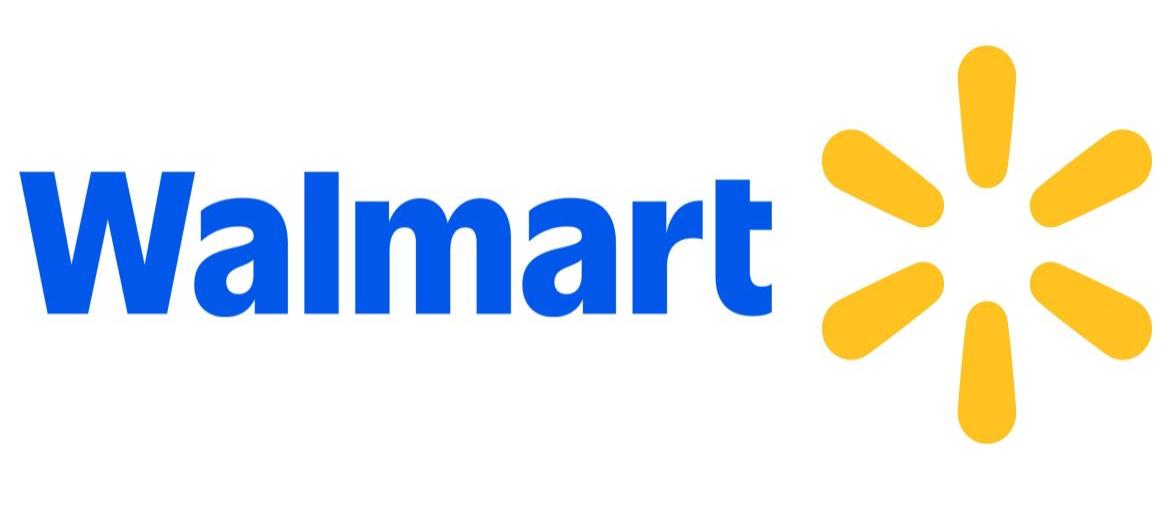
Walmart Font
What Font is Walmart?
The Walmart Font used in the brand’s updated identity is Everyday Sans, a custom-designed type family created as an extension of the Walmart wordmark. This modern sans-serif typeface features clean, approachable letterforms that reflect the brand’s friendly and accessible personality. Everyday Sans was developed to provide maximum flexibility, offering a wide range of weights and styles that allow the brand to maintain consistency across all touchpoints — from digital ads and packaging to in-store signage and corporate communications. Its simple yet confident structure communicates reliability, warmth, and everyday value.
About Walmart
Walmart is one of the world’s largest retail corporations, founded in 1962 by Sam Walton. The company operates thousands of stores worldwide and is known for offering affordable products to millions of customers every day. In its latest rebrand, Walmart refreshed its iconic spark symbol and wordmark to represent innovation, community, and optimism — with Everyday Sans playing a central role in unifying the brand’s visual language across all platforms.